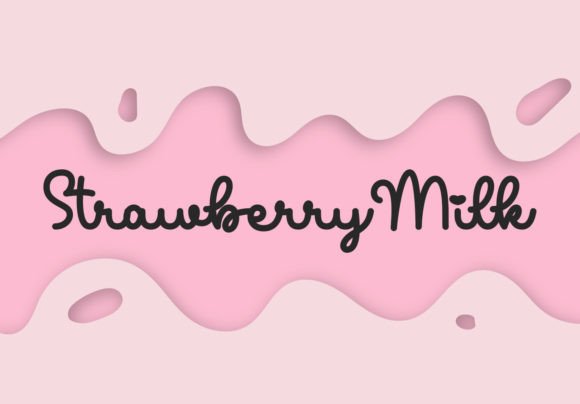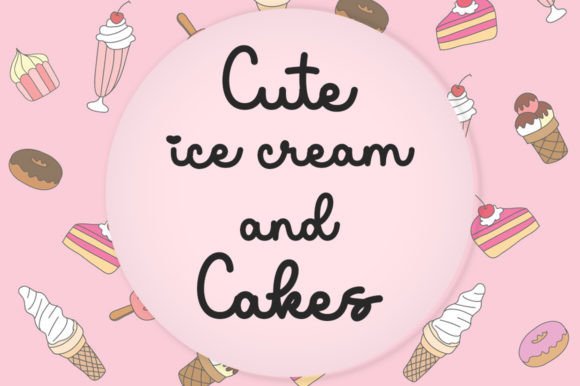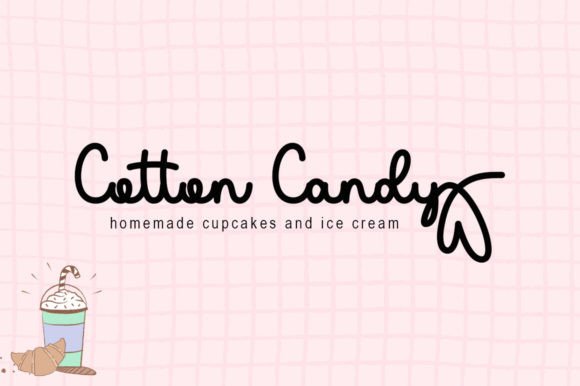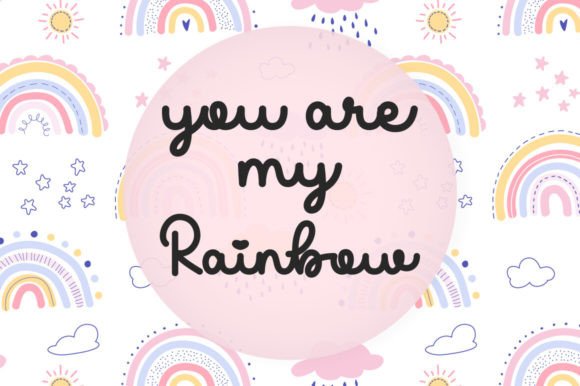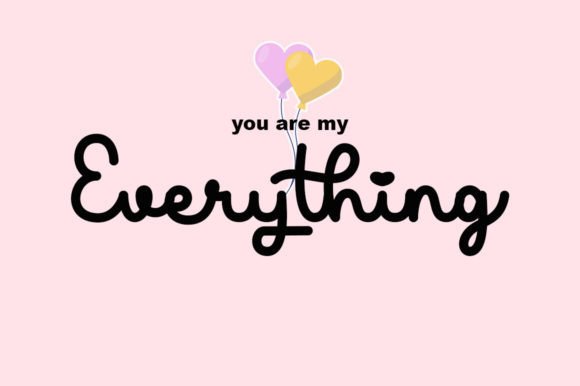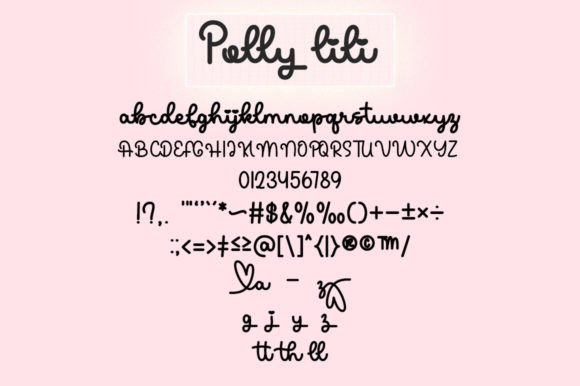
Introduction to Poly Lili Font
Remember the moment when you stumbled upon the perfect font that elevated your entire design project? For many of us, this moment is a game-changer. It’s the spark that ignites our creativity and inspires us to push the boundaries of our art. This time, I’m excited to share with you a hidden gem that will make your design journey even more enjoyable – the Poly Lili Font.
As a valuable resource for designers, the Poly Lili Font offers a high-quality, handwritten experience that’s both sweet and friendly. Its unique style is incredibly versatile, making it a perfect fit for a wide range of creative projects. Whether you’re working on a design that requires a transparent background or a project that needs a touch of personality, this font is sure to deliver.
Key Features of Poly Lili Font
- High-quality design: Poly Lili Font offers a unique and stylish design perfect for creative projects.
- Transparent background: This font features a transparent background, making it ideal for use on various backgrounds.
- Resolution-independent: The font is designed to be resolution-independent, ensuring it looks great at various sizes and resolutions.
- Unique characteristics: Poly Lili Font features a distinctive, modern design with a mix of geometric and organic elements.
Honest Review: Poly Lili Font
As a designer, I’m always on the lookout for high-quality design resources to elevate my creative projects. The Poly Lili Font has caught my attention, and I’m excited to share my honest review.
- ✨ Unique and playful design style that adds a touch of whimsy to any project.
- ✨ High-quality font files that are crisp and clear, even at larger sizes.
- ✨ Transparent background, making it easy to layer over other design elements.
- ⚠️ Limited character set, which may not be ideal for long-form text.
- ⚠️ Not as versatile as some other fonts, may not be suitable for formal or professional projects.
Overall, I’m impressed with the Poly Lili Font’s unique design style and high-quality files. While it may not be perfect for every project, it’s a great addition to any designer’s toolkit. If you’re looking for a fun and playful font to add some personality to your creative project, the Poly Lili Font is definitely worth checking out.